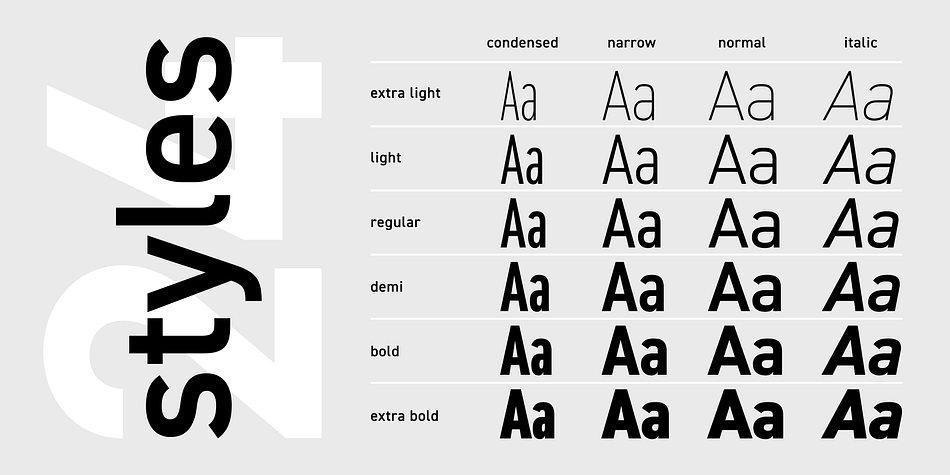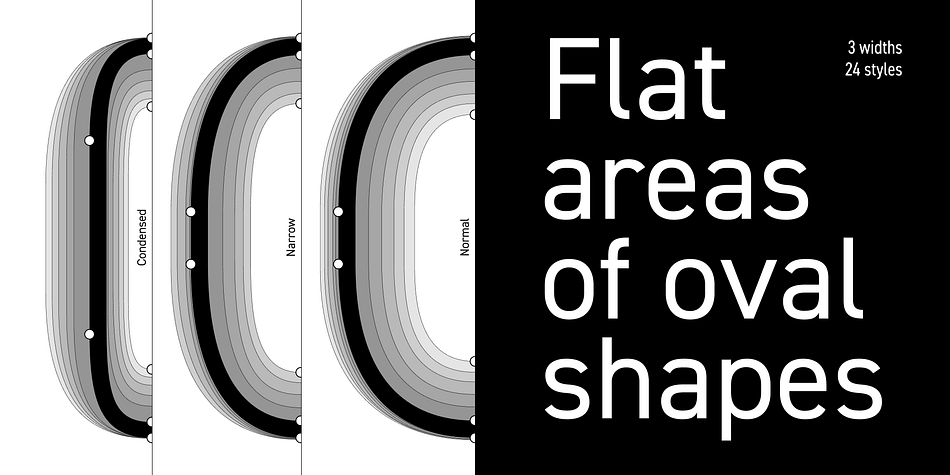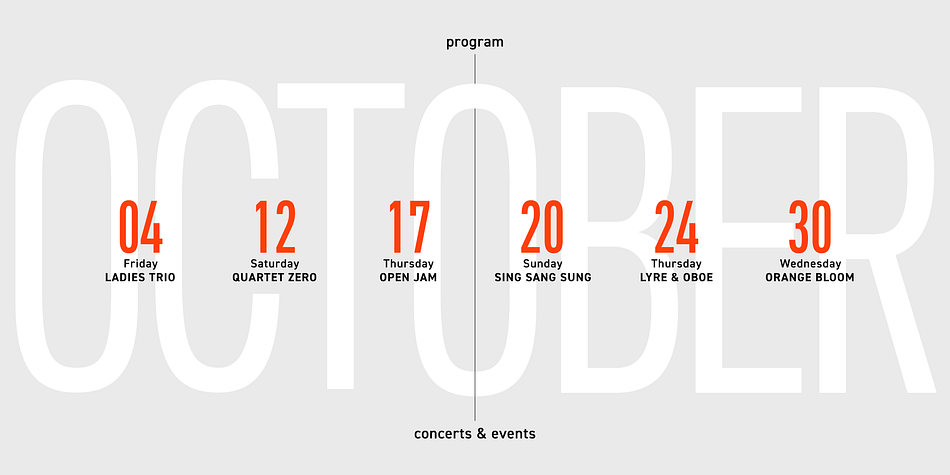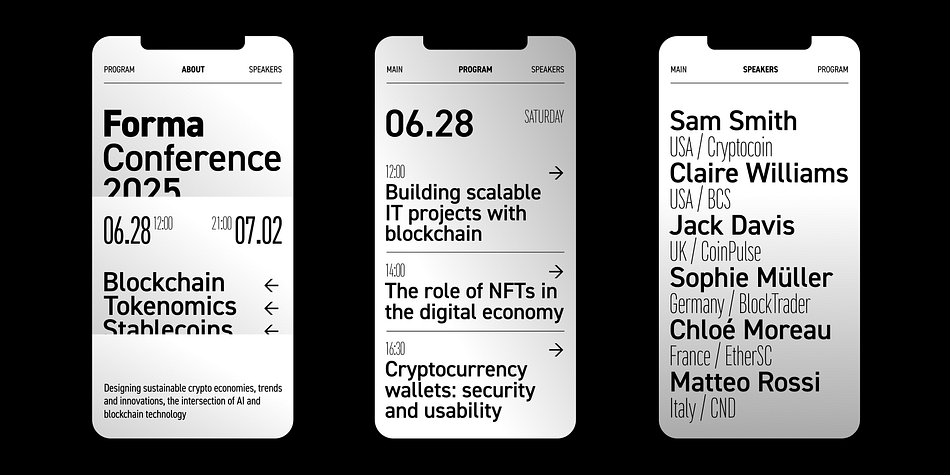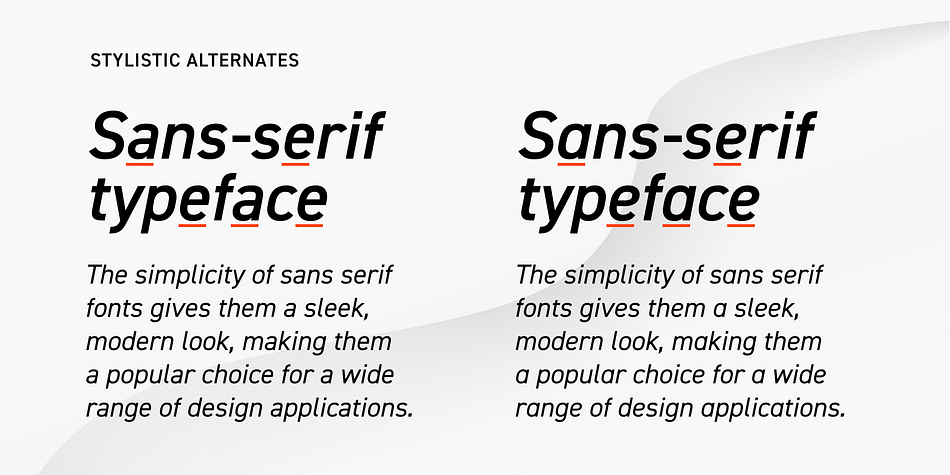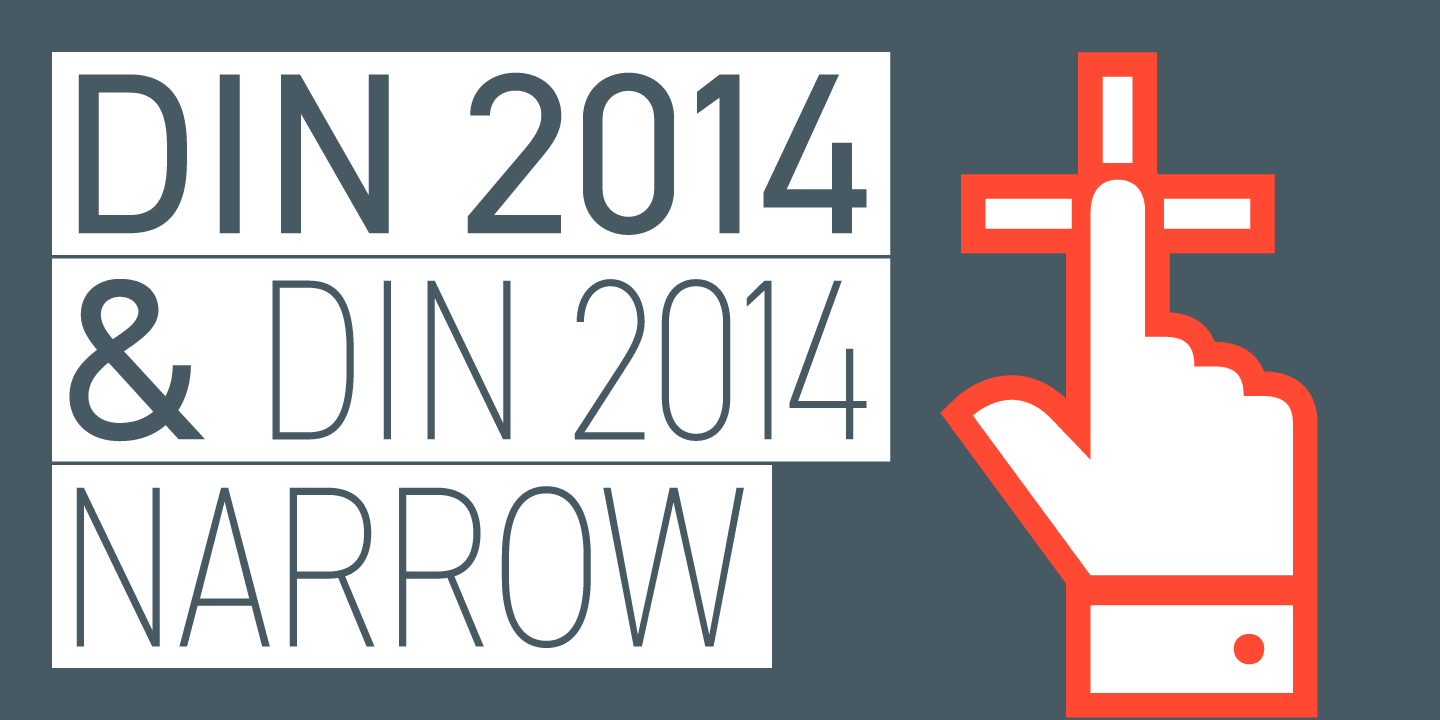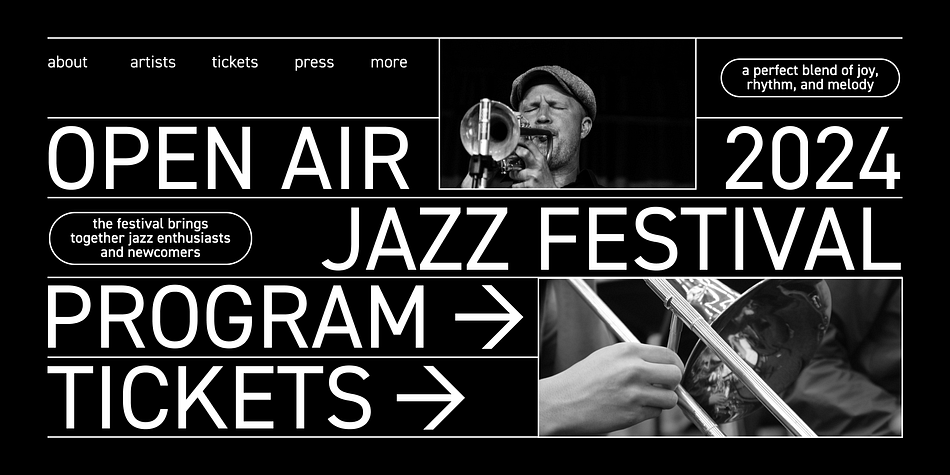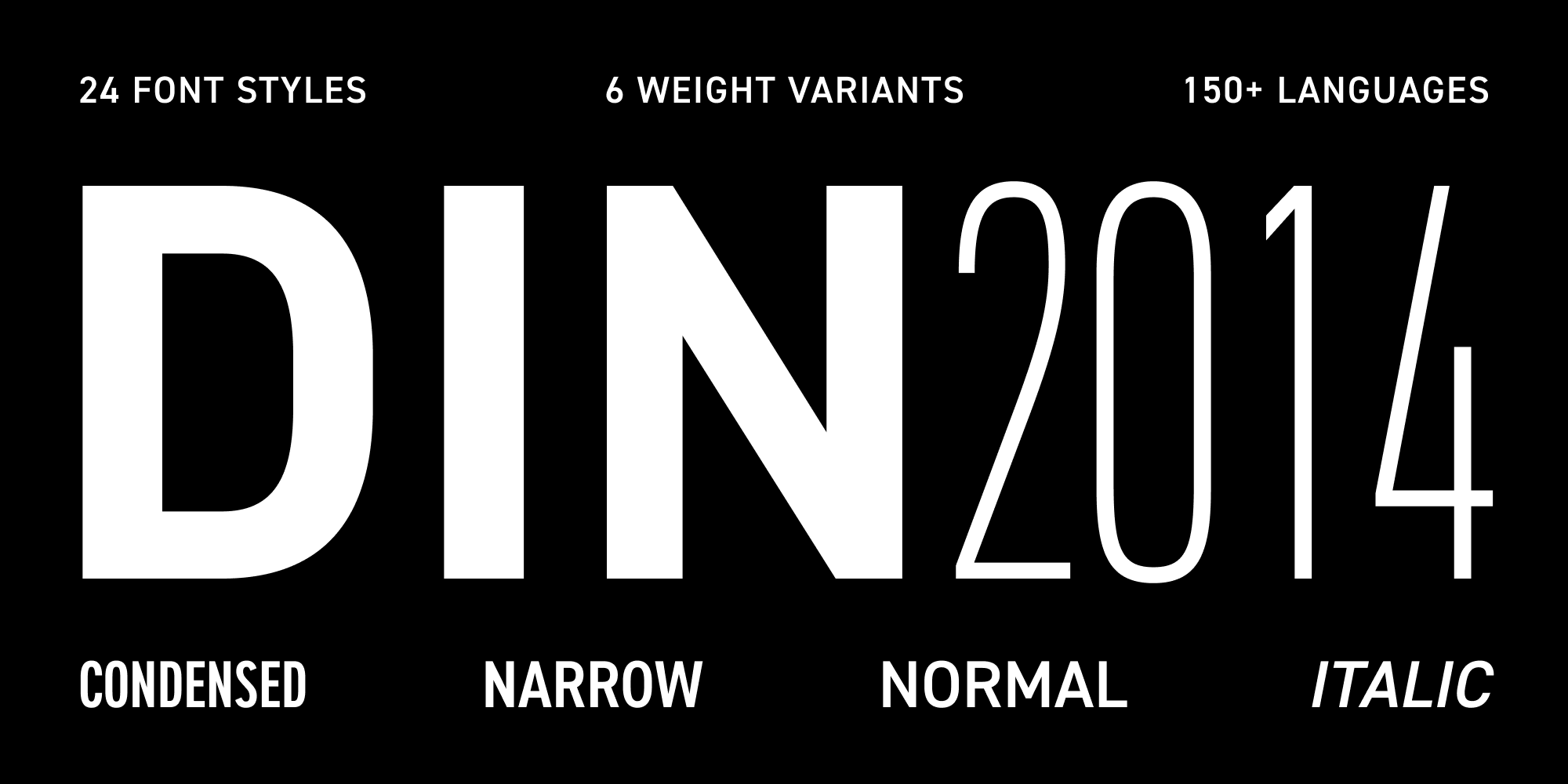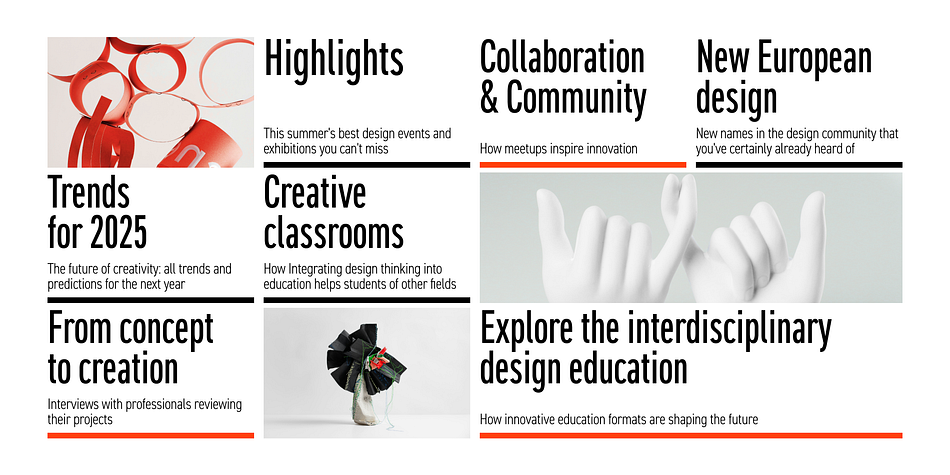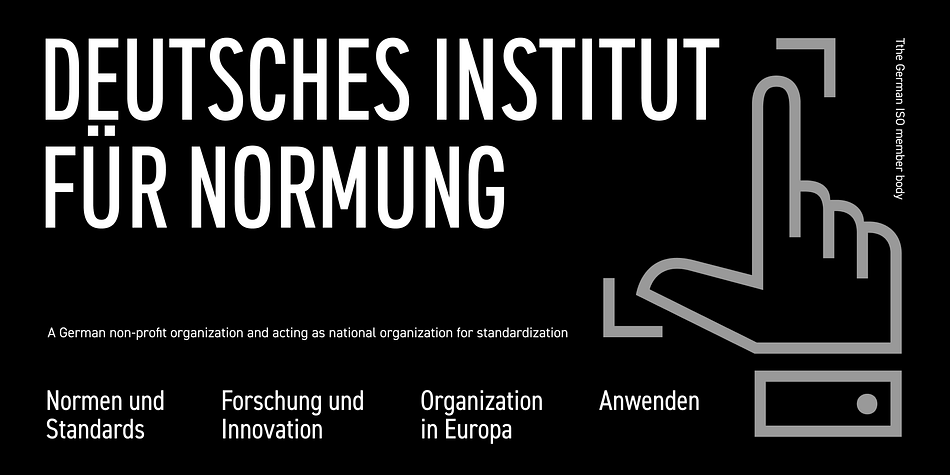
Designed by Vasily Biryukov, DIN 2014 is a sans serif font family. This typeface has eighteen styles and was published by ParaType.
DIN 2014 is a contemporary version of a well-known DIN typeface. The Regular performs well in long text settings, while Light and Bold faces are extremely legible at large sizes. Type family spans 18 faces: 6 Upright with the matching Italics of normal width and 6 Narrow ones. The typeface was designed by Vasily Biryukov and released by Paratype in 2015.